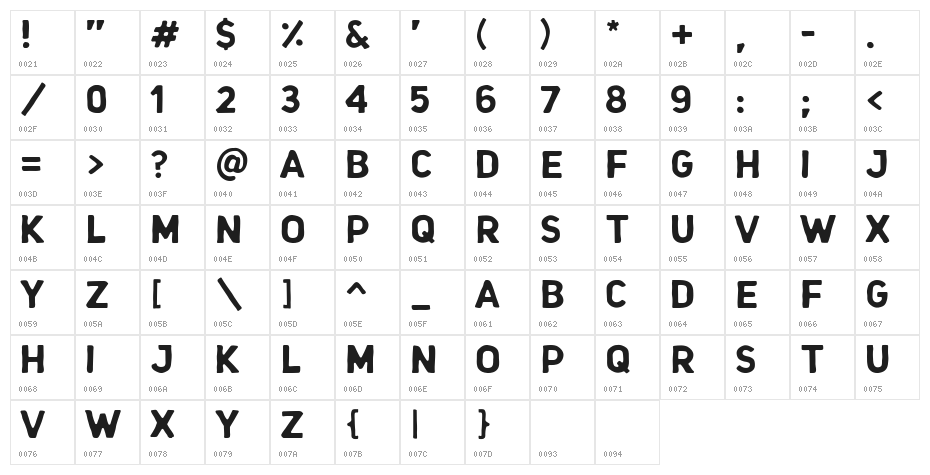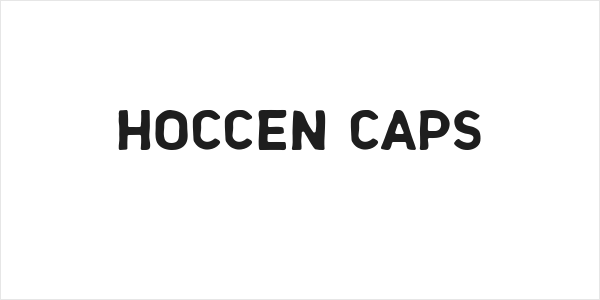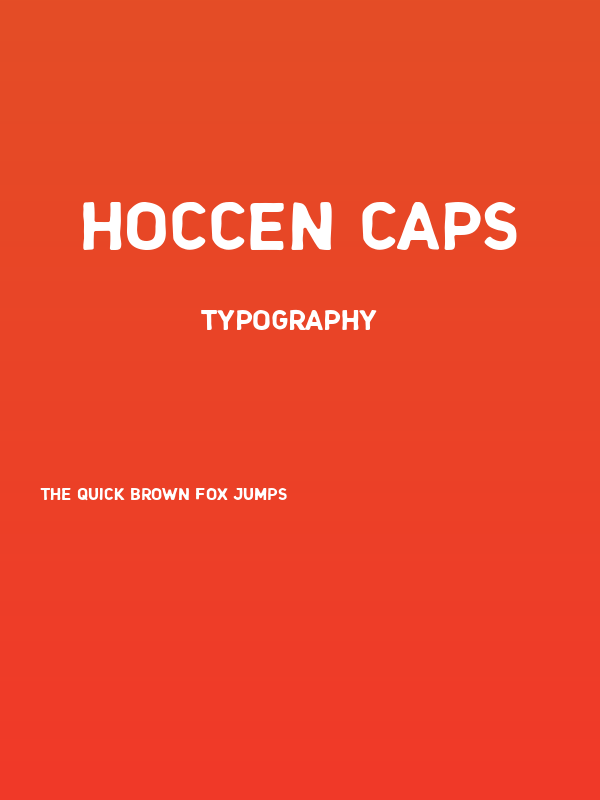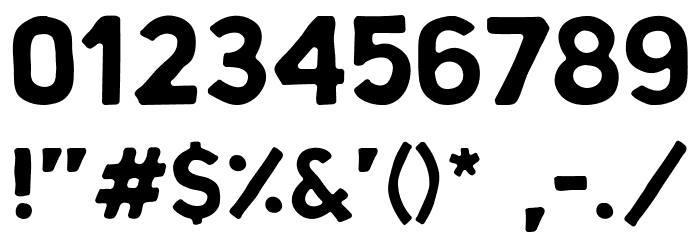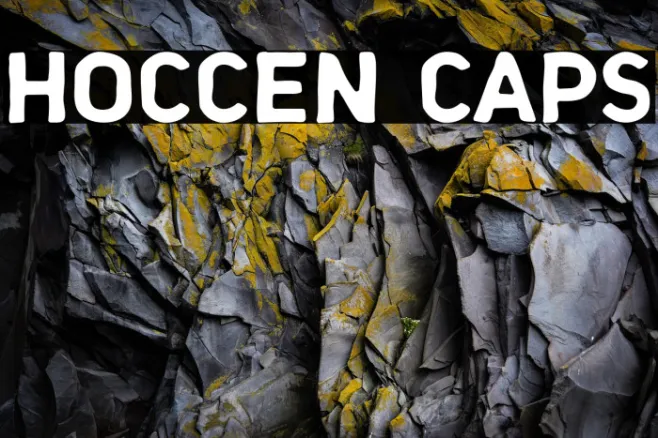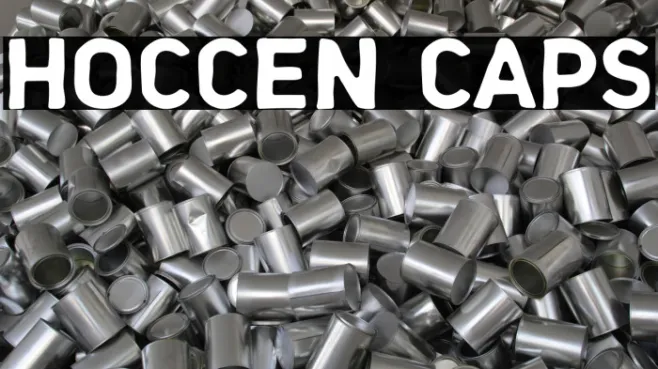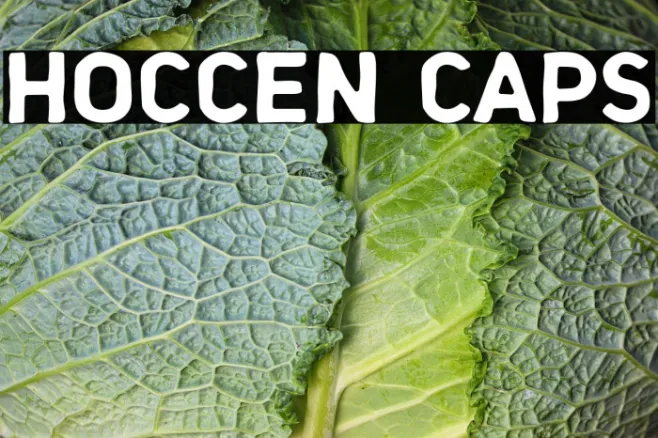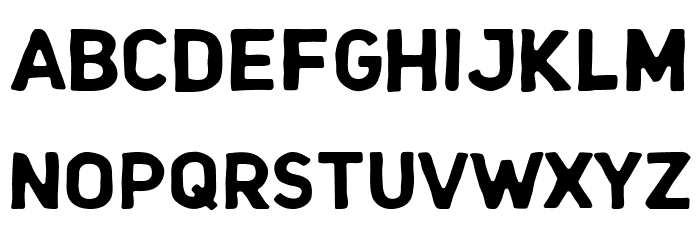
HOCCEN CAPS Font
HOCCEN CAPS Description
This font features a bold and playful style with rounded edges and a slightly uneven baseline, giving it a hand-drawn appearance. The characters are thick and substantial, making them highly legible and impactful. The uppercase letters are consistent in height, while the numbers and special characters maintain the same boldness and style. This font's unique charm lies in its informal and friendly aesthetic, making it suitable for creative and casual applications. The overall design is cohesive, with each character complementing the others, creating a harmonious and visually appealing typeface.
| Overall Style | Playful, Informal |
| Proposed Projects | Ideal for children's books, playful branding, posters, and creative projects. |